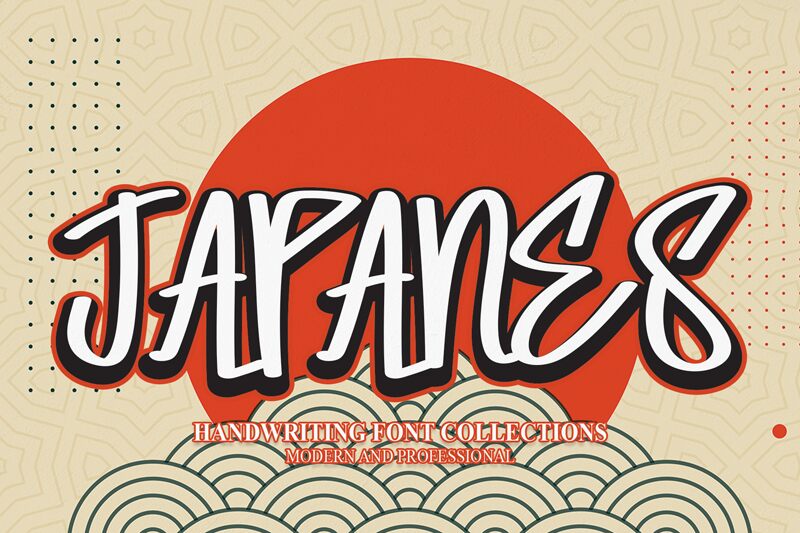
JAPANES
JAPANES, the semi-light handwritten font designed by scratchones, captures the elegance and simplicity of Japanese calligraphy. Its condensed width adds a touch of modernity while maintaining a minimalist approach. Perfect for projects that require a refined yet personal touch, JAPANES is suitable for logo design, product packaging, wedding invitations, and more. Its unique style stands out in both digital and print media, making it a versatile choice for any creative endeavor. With JAPANES font typeface in your arsenal, you can effortlessly add an air of sophistication to your designs while staying true to your vision.
the latest style letters are perfect for wall displays, wedding invitations, social media post logos, advertisements, product packaging, product designs, labels, photography, watermarks, invitations, stationery, and any project that requires taste handwriting.